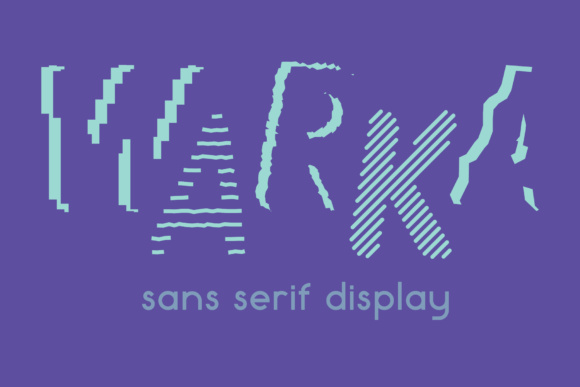
Warka Stripes Font
Voyage into the realm of visual expression with Warka Stripes, a groundbreaking display font family crafted to ignite your imagination and elevate your designs to new realms of excellence. Experience the mesmerizing synergy of sharp, clean strokes and an organic, flowing rhythm that dances off the page. Warka Stripes' inherent elegance and versatility effortlessly adapt to a myriad of projects, from captivating logos and headlines to eye-catching posters and advertisements.
With its roots firmly planted in the sans serif tradition, Warka Stripes exudes a timeless sophistication that stands the test of time. Its carefully balanced letterforms and graceful curves lend an air of sophistication and refinement to any creative endeavor.
Step beyond the ordinary and embrace the limitless possibilities of Warka Stripes' extended family. Unleash your creativity with Lines, Blocks, Rough, and Stoned variations, each possessing a unique character and texture that adds depth and dimension to your designs. Combine and mix these variations seamlessly to create striking visuals that captivate and intrigue your audience.
Warka Stripes is a font family designed to empower the visionary, the artist, and the storyteller. Its versatility knows no bounds, effortlessly flowing from the digital realm to the physical world. Embark on a creative odyssey, and allow Warka Stripes to guide you through uncharted territories of design excellence.